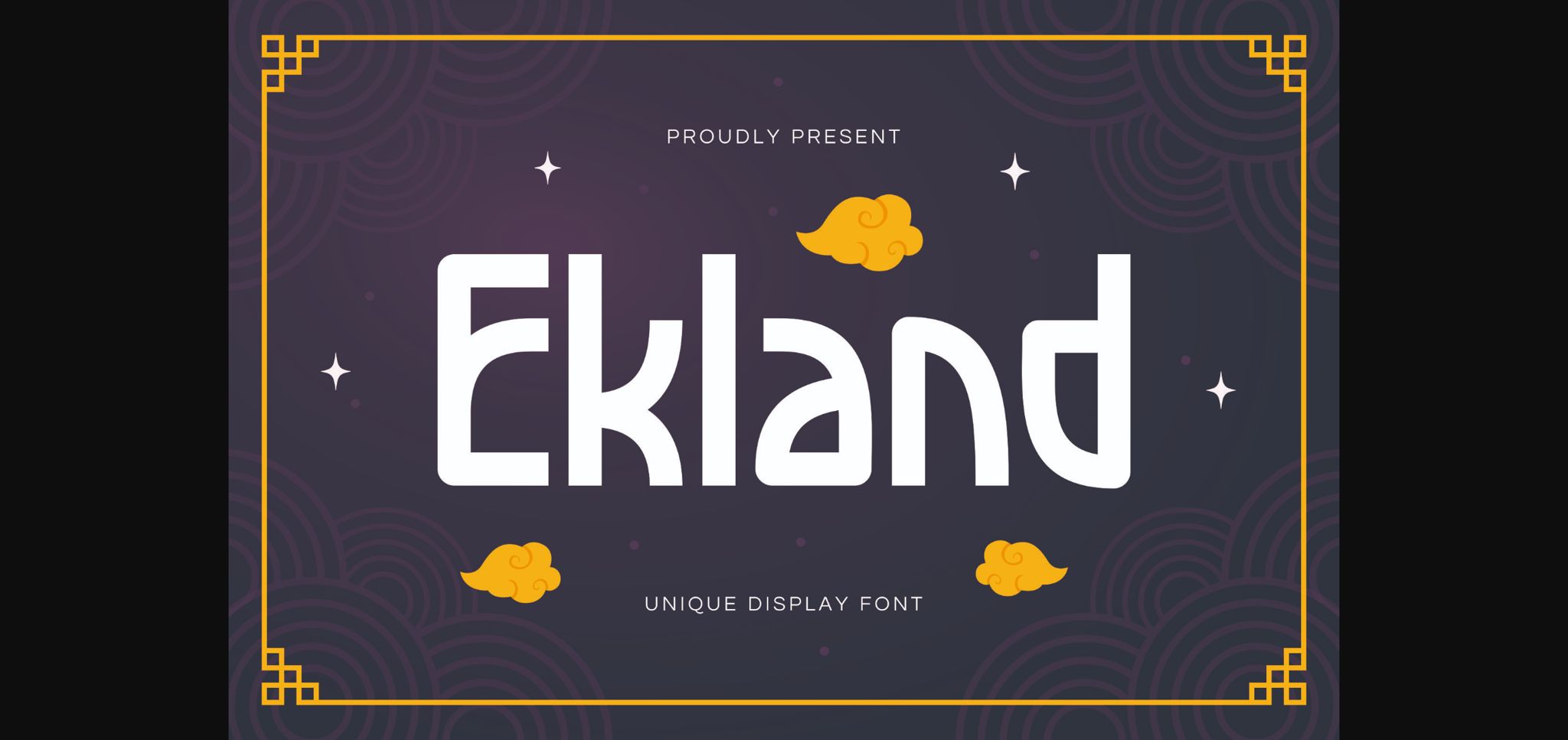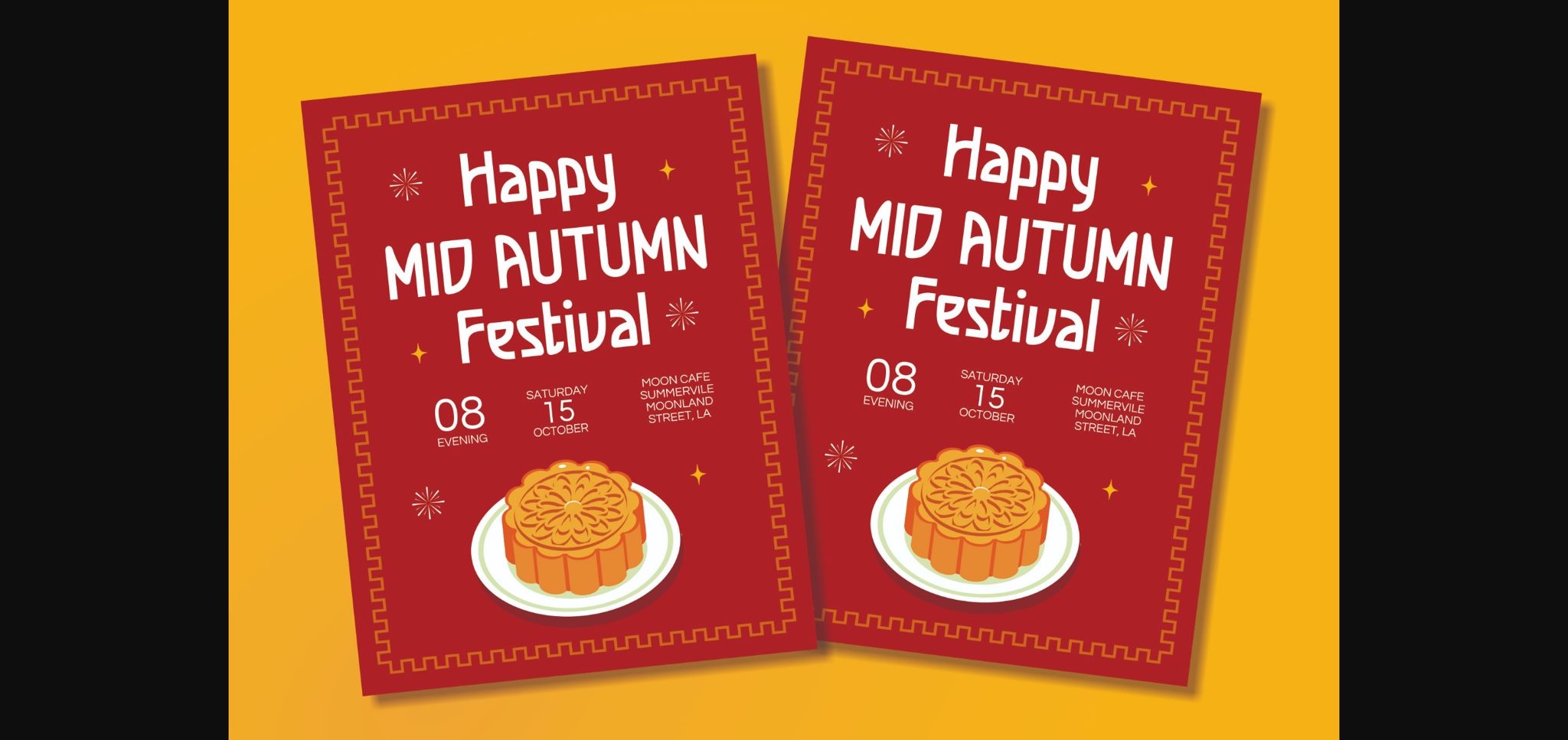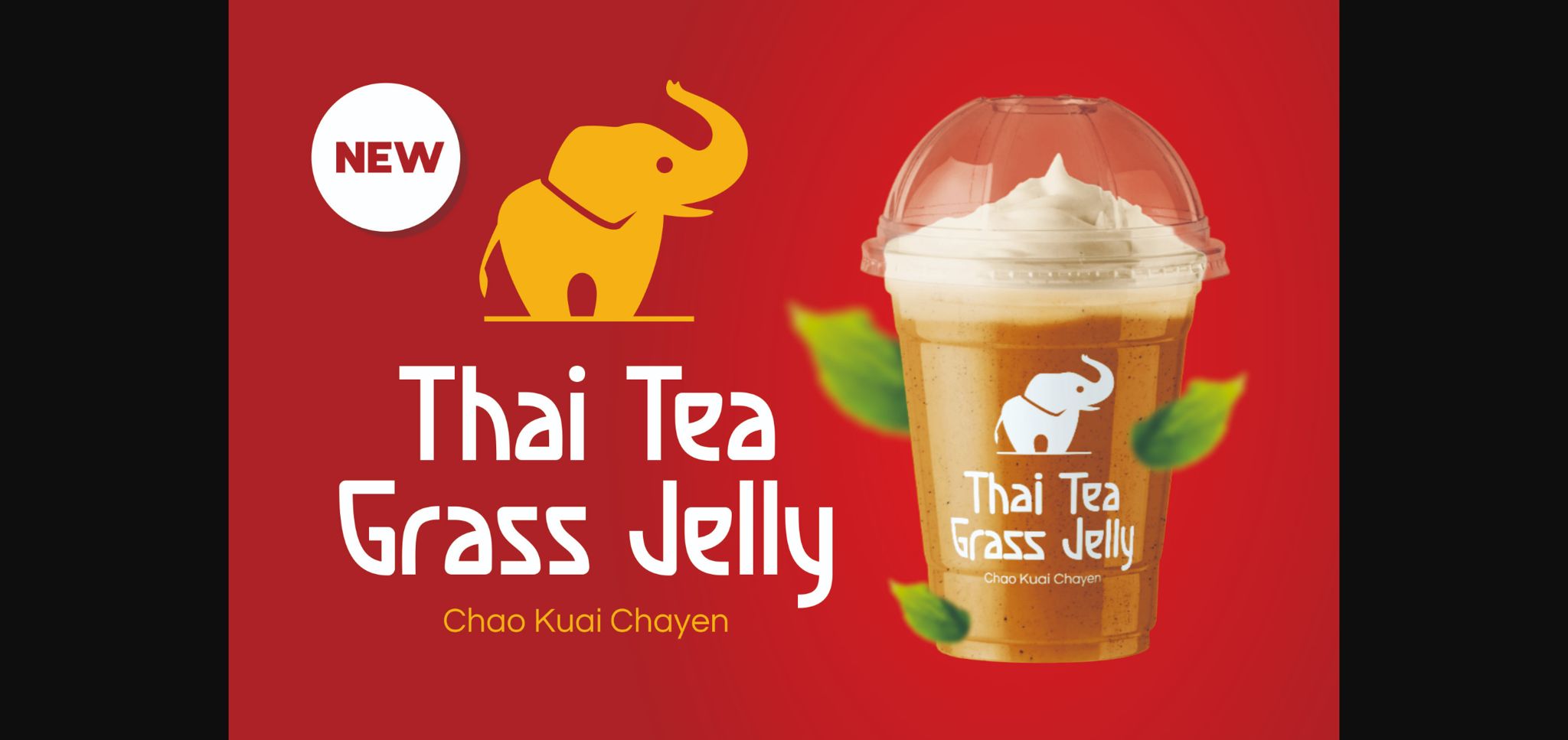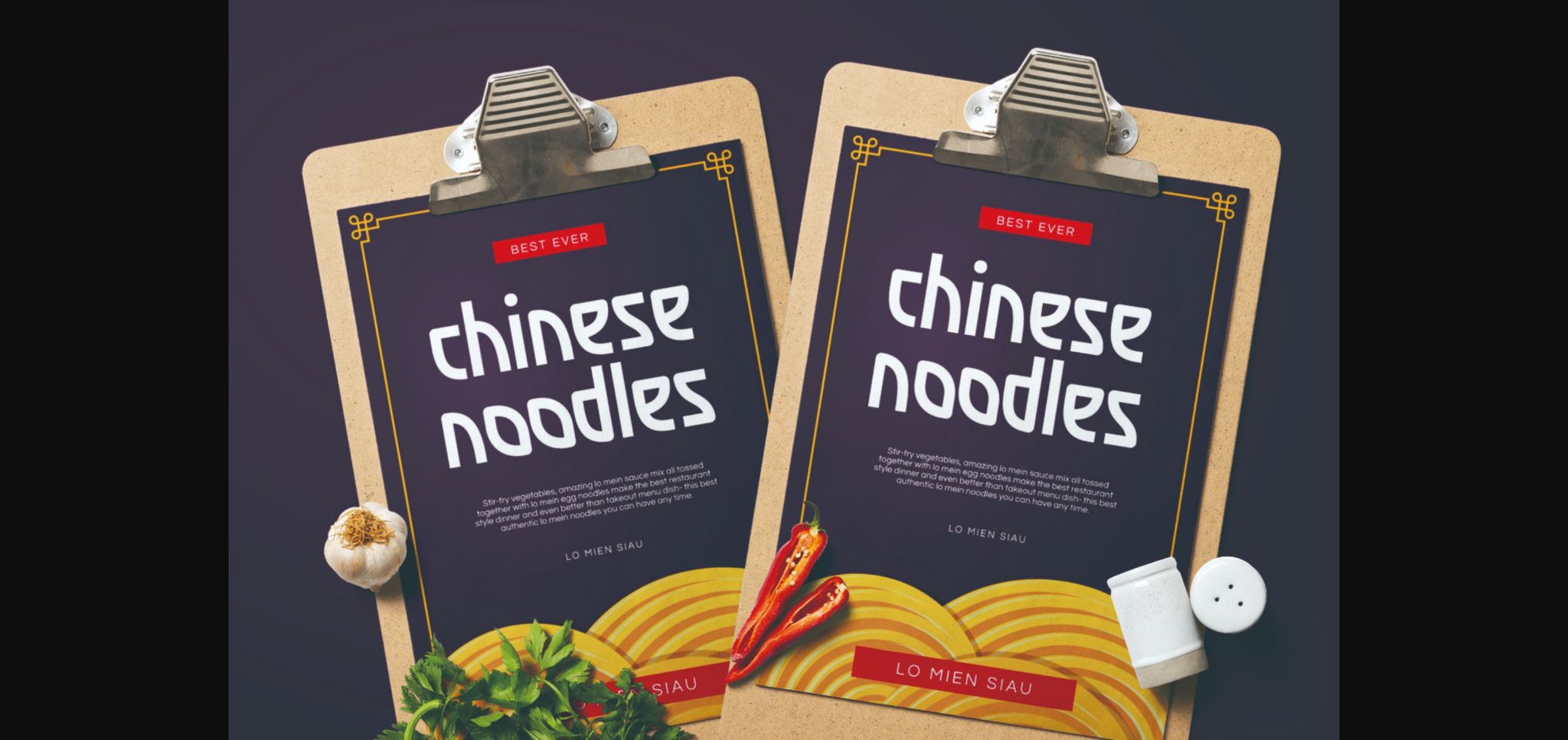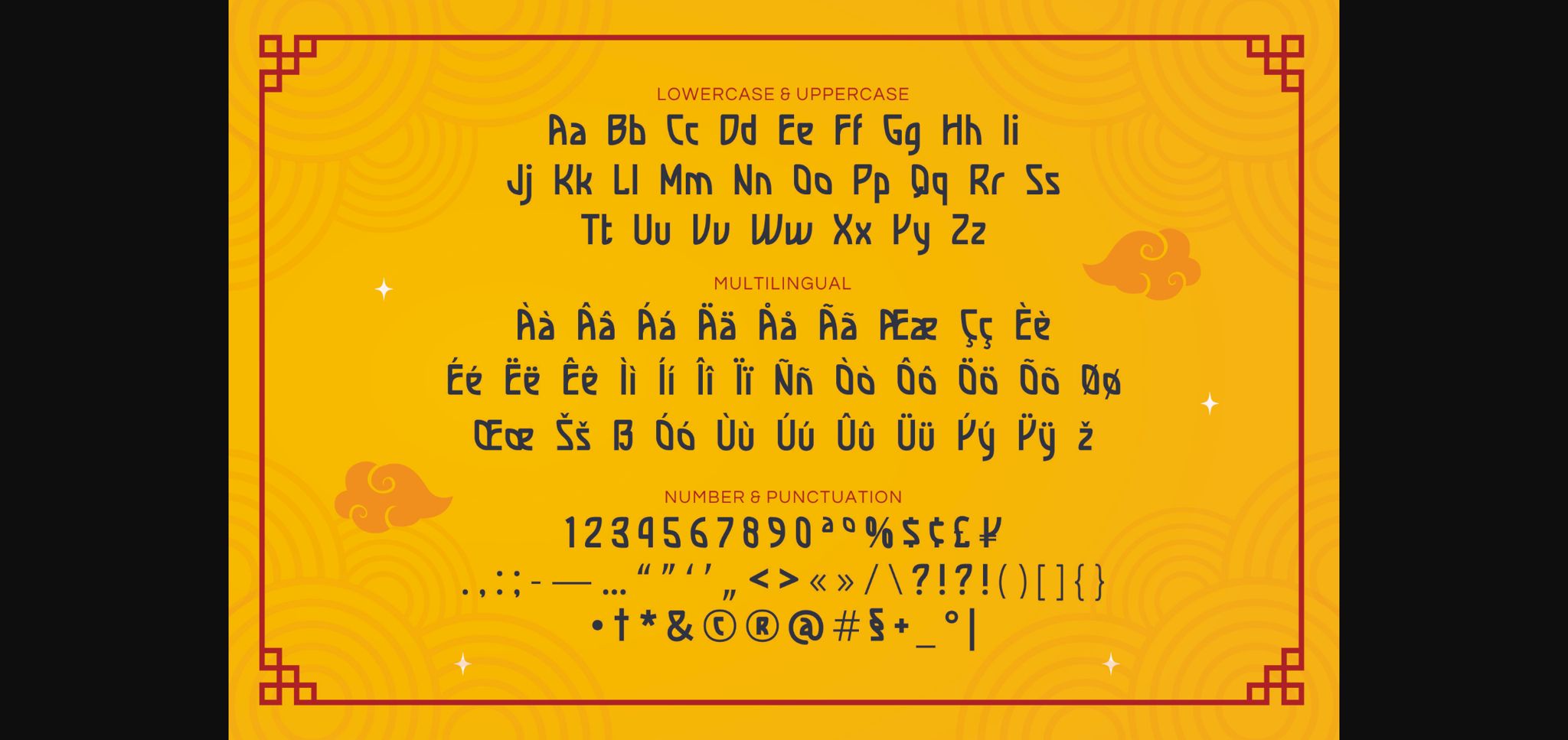
About Ekland Font
Ekland is a modern and stylish sans serif font. Its unique style makes it incredibly fitting to a large pool of designs. The only limit is your imagination!